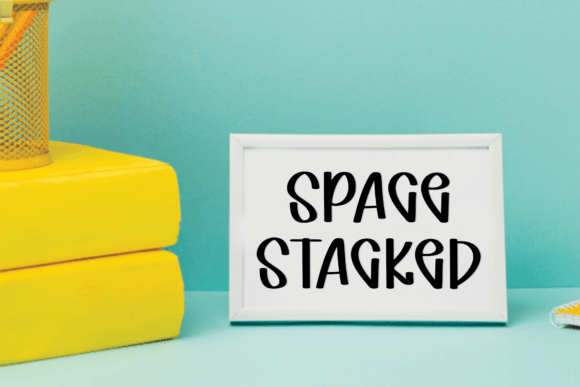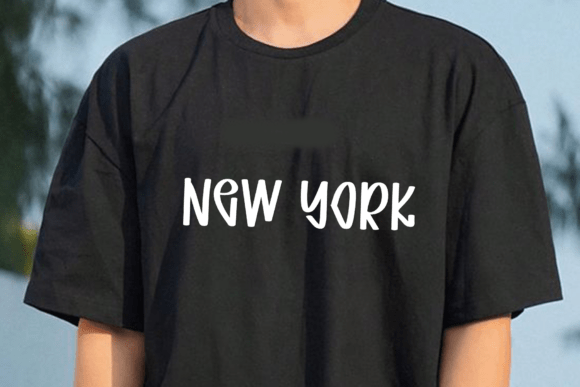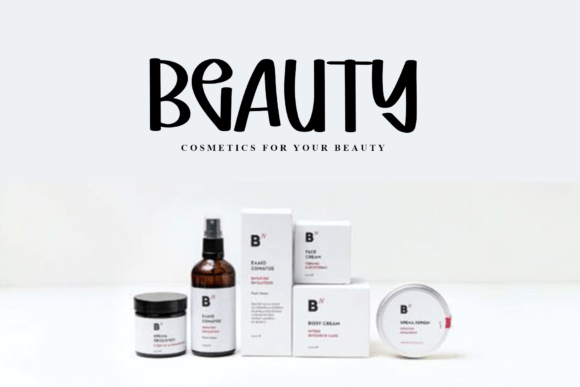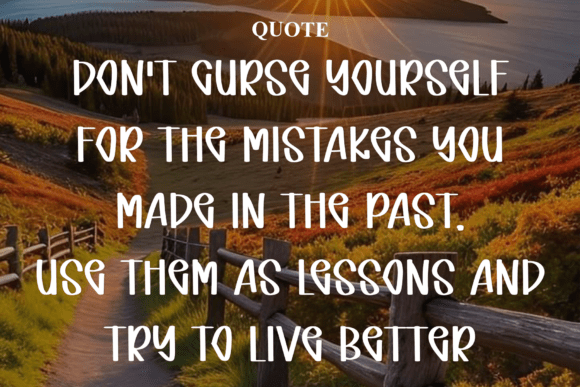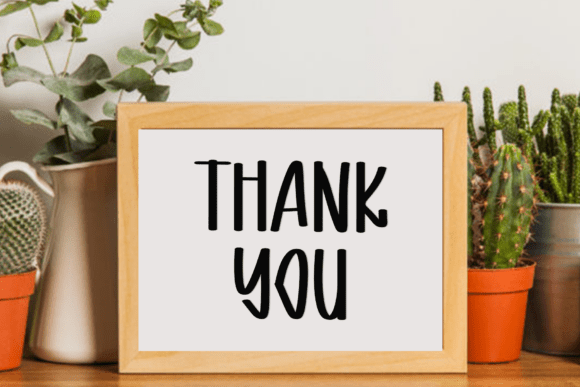
The Bubbly Letter Font: A Cheerful and Bold Modern Display Font
- ✨ Unique and playful style: The Bubbly Letter font boasts rounded edges and a bubbly personality that makes it perfect for kid-friendly designs, product packaging, posters, social media graphics, and branding projects that need a touch of charm and creativity.
- ✅ Highly versatile: This font can be used for a wide range of design projects, from fun and playful to bold and eye-catching.
- 💥 Attention-grabbing: The Bubbly Letter font pops with energy and is sure to grab attention wherever it’s used.
Now, let’s talk about some minor quirks:
- 🤔 Limited use in formal designs: Due to its playful nature, the Bubbly Letter font might not be the best fit for formal or professional designs.
- ⚠️ Legibility at small sizes: As with many display fonts, the Bubbly Letter font may lose legibility when used at very small sizes.
The Designer Inspiration Behind Bubbly Letter Font
The Bubbly Letter font was designed with the intention of creating a playful and cheerful display font that would bring joy to designs. The designer aimed to craft a font that would be perfect for kid-friendly projects, product packaging, and branding initiatives that require a touch of whimsy and charm.
Q: What type of designs is the Bubbly Letter font best suited for?
A: The Bubbly Letter font is perfect for kid-friendly designs, product packaging, posters, social media graphics, and branding projects that need a touch of charm and creativity.